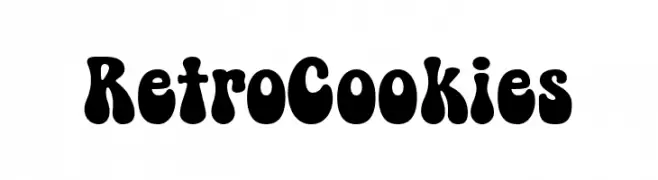
A playful, retro font with bold, rounded characters and a groovy 60s vibe.
A bold, rounded, and playful retro font with a 60s and 70s vibe.
A bold, retro-inspired font with rounded, bubbly characters.
A bold, playful retro font with thick, rounded letterforms and a bubbly appearance.
A bold, retro font with rounded, bubbly letterforms and high contrast strokes.
A playful, retro font with bold, rounded shapes and whimsical curves.